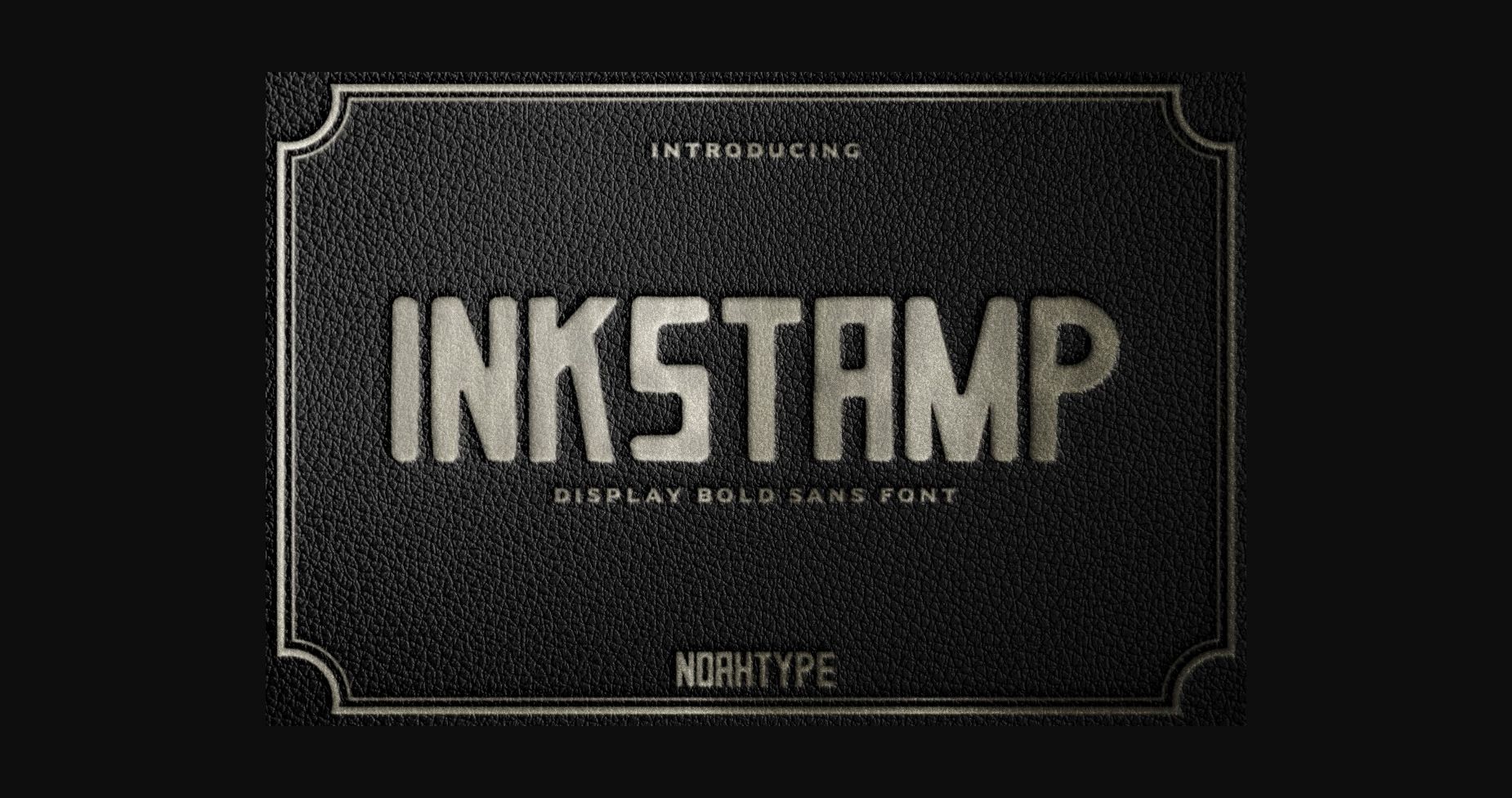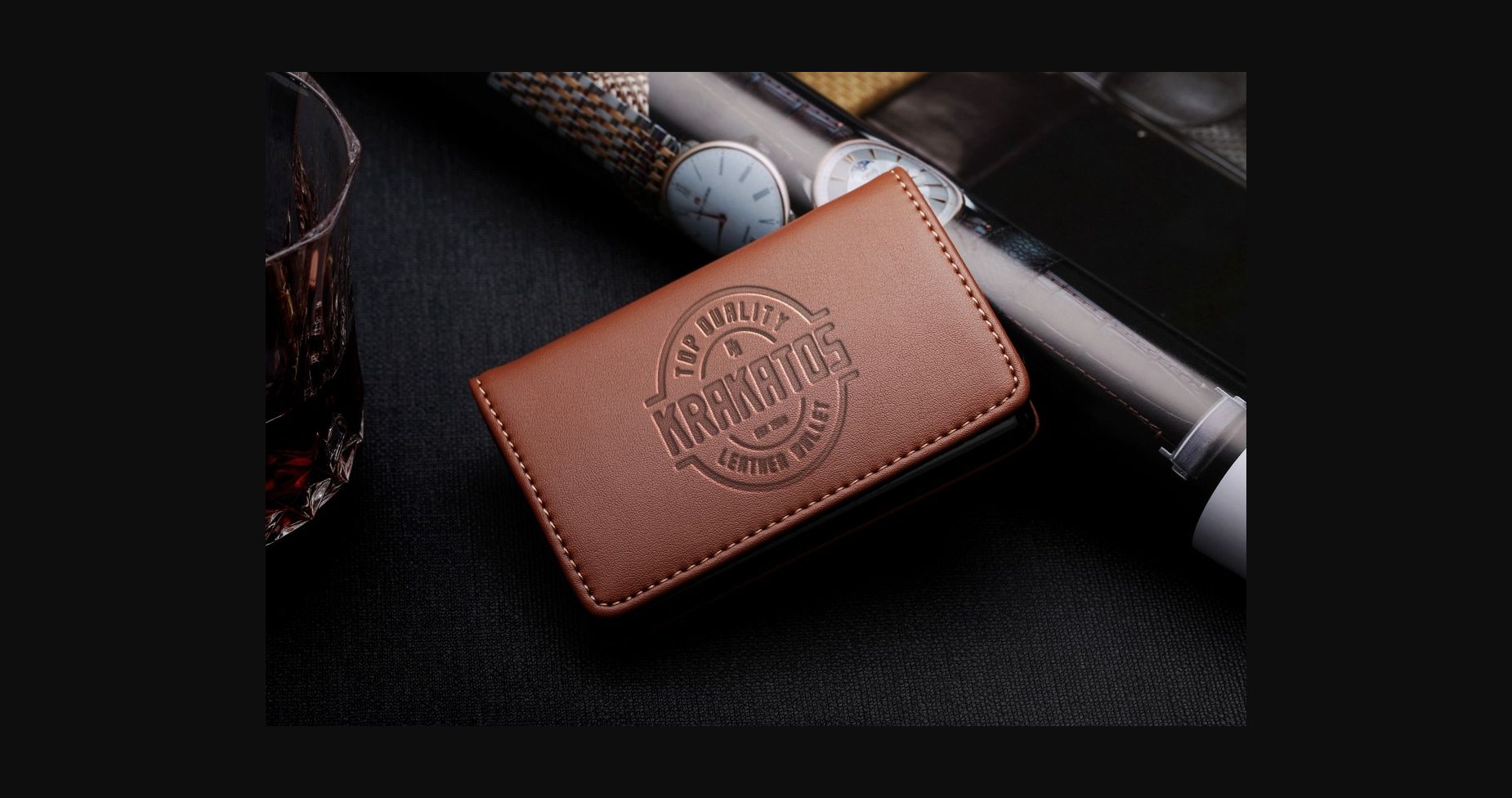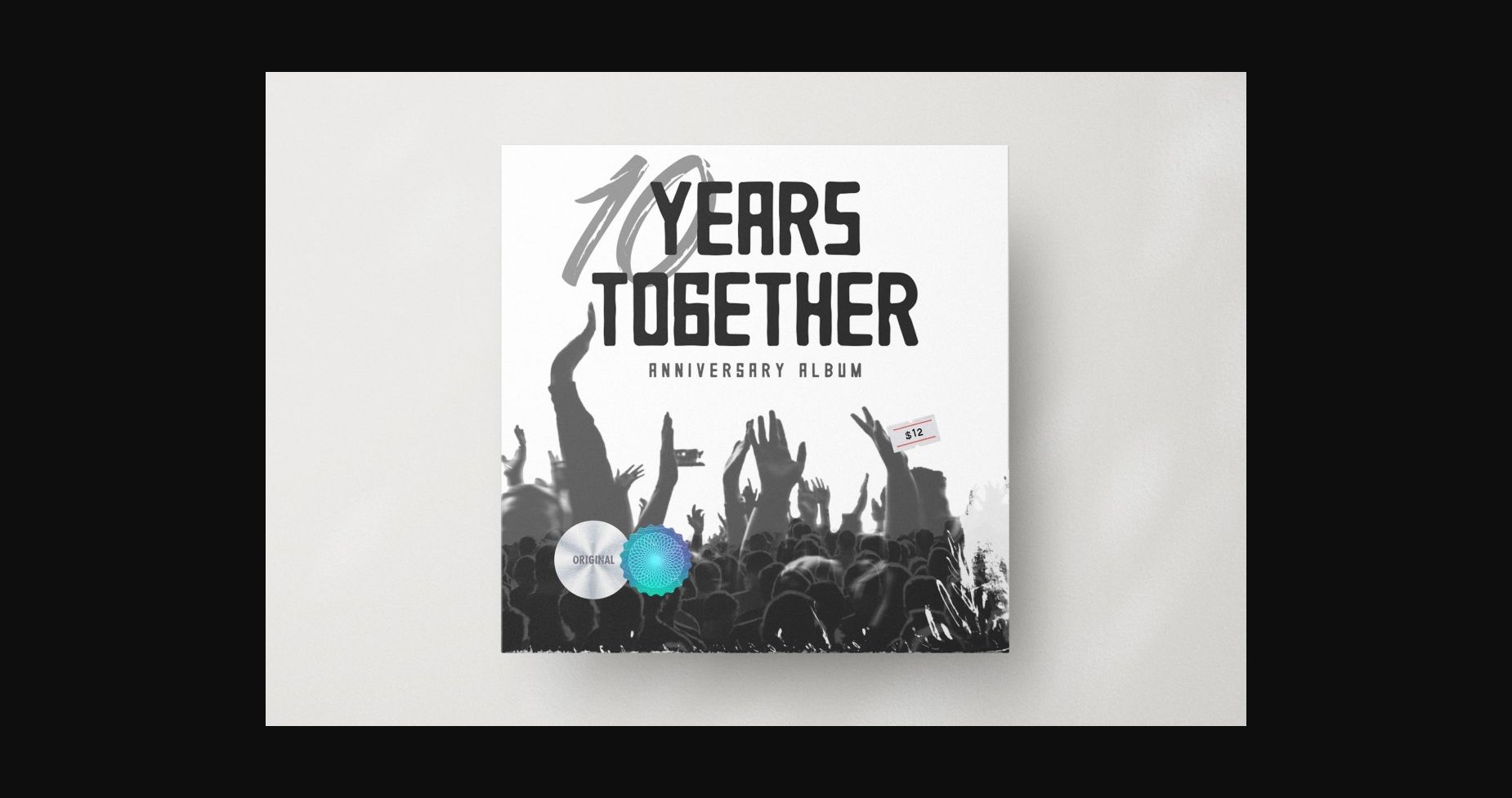
About Inkstamp Font
Inkstamp is an exclusive sans serif font inspired by press machine lettering. It has a unique style that will bring the old vintage special effect to your designs.